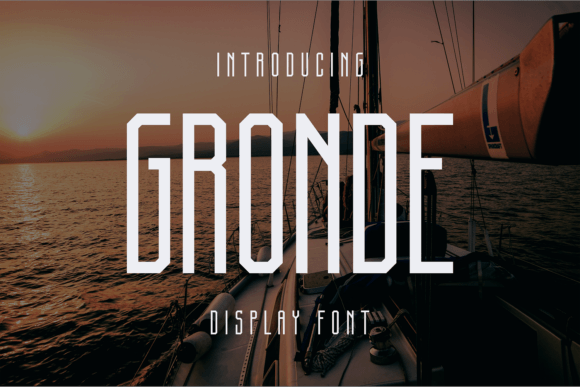
Discover the Magic of Gronde Font: Elevate Your Designs
Have you ever stared at a blank canvas, desperate for inspiration to strike? It’s a moment we’ve all experienced as creatives – that nagging feeling that we’re missing the key to unlocking our true potential. But what if we told you that the secret to unlocking your design dreams lies in a single, stunning font?
Meet Gronde Font, a sleek and sophisticated display font that’s been carefully crafted to bring your creations to life. Whether you’re a seasoned pro or just starting out, this font is the perfect addition to your library, offering a level of detail and nuance that’s hard to find elsewhere.
As a designer, you know how much a single font can make or break a project. With Gronde Font, you can rest assured that your work will be elevated to new heights, thanks to its unique blend of style and sophistication.
Gronde Font Key Features
- Font Family: Gronde is a sans-serif font family with multiple weights and styles, including light, regular, bold, and extra bold.
- Unique Characteristics: Gronde’s distinctive design features include a geometric structure, clean lines, and a subtle flair at the terminals, giving it a modern and sophisticated look.
- Language Support: Gronde supports a wide range of languages, including Latin, Cyrillic, Greek, and many others, making it a versatile choice for global applications.
Gronde Font Review
I recently had the chance to work with the Gronde Font, and I’m excited to share my honest review with you. Here’s what I think:
- Unique Aesthetic**: The Gronde Font has a distinct, modern feel that sets it apart from other fonts. Its unique letterforms and subtle texture make it perfect for projects that need a touch of sophistication.
- High Legibility**: Despite its bold appearance, the Gronde Font is surprisingly easy to read, even at small font sizes. This makes it an excellent choice for body text, headings, and other large blocks of text.
- Excellent for Digital Use**: The font’s design is optimized for digital displays, ensuring that it looks crisp and clear on screens of all sizes.
- Not Ideal for Small Text**: While the Gronde Font is highly legible, it’s not the best choice for very small text sizes (e.g., captions, footnotes). Its bold nature can make it difficult to read at these sizes.
- Limited Font Weights**: The font only comes in a few weights, which may limit its versatility in certain design situations.
Overall, I’m impressed with the Gronde Font’s unique style and high legibility. While it may not be perfect for every design situation, it’s an excellent choice for projects that need a modern, sophisticated look.
For optimal results, use Gronde in conjunction with a clear and concise message. Balance text with images and white space to create a visually appealing design. Experiment with different font sizes and styles to add emphasis and hierarchy to your content.
Gronde is suitable for various design projects, including:
- Web design and e-commerce